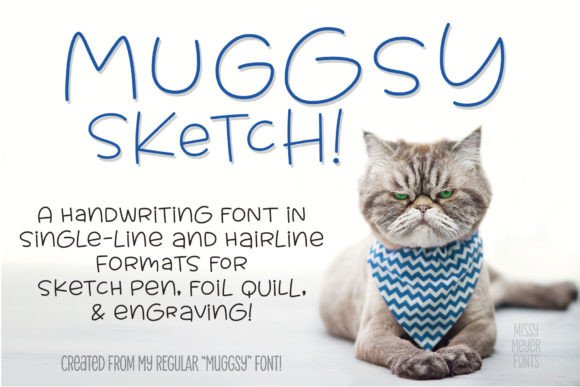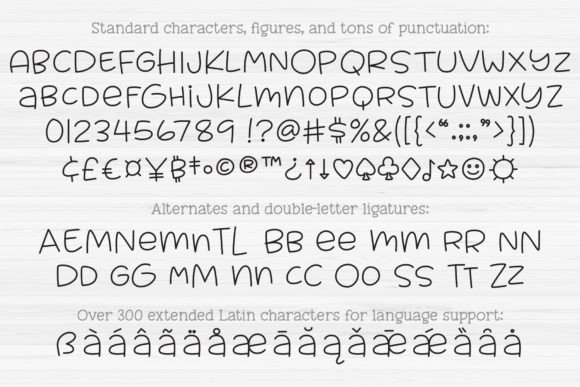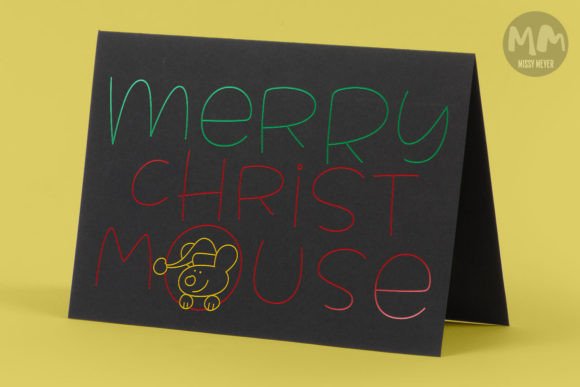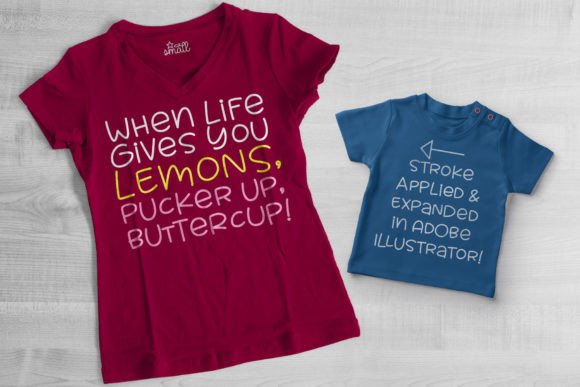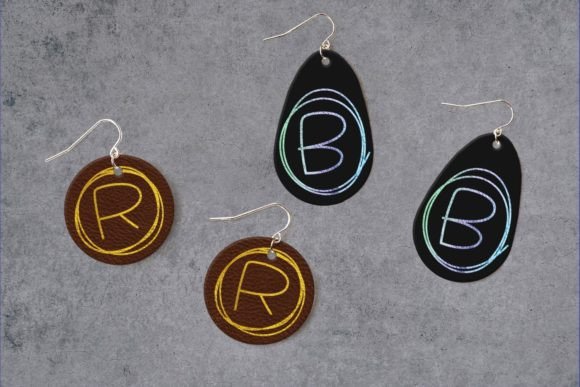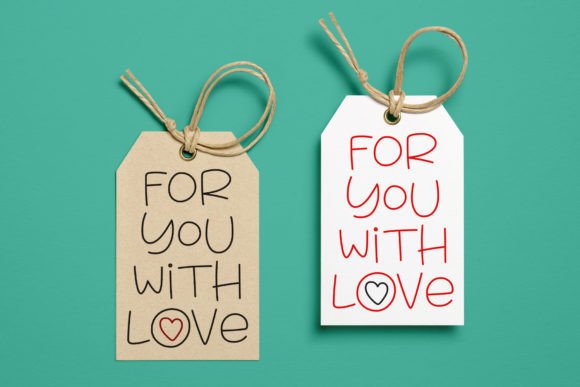
Muggsy Sketch (single Line) Font
Introducing MUGGSY in single-line format! Departing from the more formal style of many single-line and hairline fonts, MUGGSY brings a quirky and handwriting-inspired flair to this unique font category. Crafted specifically for sketch pens, foil quill, engraving tools, infusible ink pens, and similar implements, MUGGSY offers a distinctive and playful touch for your creative projects.
Here’s what makes MUGGSY in single-line format stand out:
### Features:
**Dual Uppercase Alphabets:**
MUGGSY provides two uppercase-height alphabets, with a few lowercase-style letters like ‘a’ and ‘e’ included in the lowercase set. This diversity allows for creative and varied combinations.
**Smallternates:**
A complete set of 63 “smallternates” offers smaller versions of letters, numbers, and the ampersand. These smaller characters can be seamlessly integrated with the full-size letters for added variety.
**Double-Letter Ligature Sets:**
MUGGSY includes 30 double-letter ligature sets, enhancing the overall aesthetic and ensuring a smooth, natural flow between letters.
**Punctuation and Extended Latin Characters:**
A comprehensive range of punctuation marks, along with over 300 extended Latin characters, supports a multitude of language needs. This extensive character set ensures versatility and accessibility.
**OpenType Coding and PUA Encoding:**
**Specialized Tools:**
In essence, MUGGSY in single-line format brings a fresh and whimsical handwriting style to the realm of specialized fonts, offering a playful choice for your artistic endeavors.